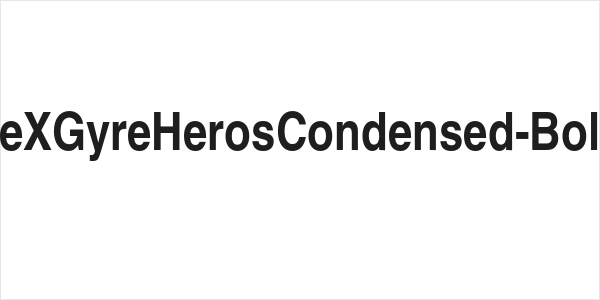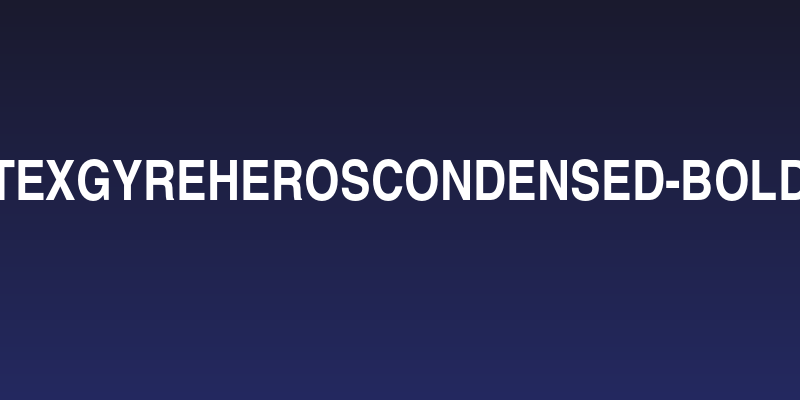
TeXGyreHerosCondensed-Bold Font
TeXGyreHerosCondensed-Bold Description
This font exhibits a clean and modern sans-serif style with a condensed width, making it ideal for space-efficient designs. The bold weight enhances its visibility and impact, ensuring that text stands out prominently. The characters are uniformly designed, providing a cohesive and professional appearance. The uppercase and lowercase letters are well-proportioned, and the numerals are clear and easy to read. Special characters are included, maintaining the font's versatility for various applications. The overall design is straightforward yet effective, suitable for both digital and print media.
| Proposed Projects | Ideal for headlines, posters, branding, and any project requiring a strong, modern typeface. |